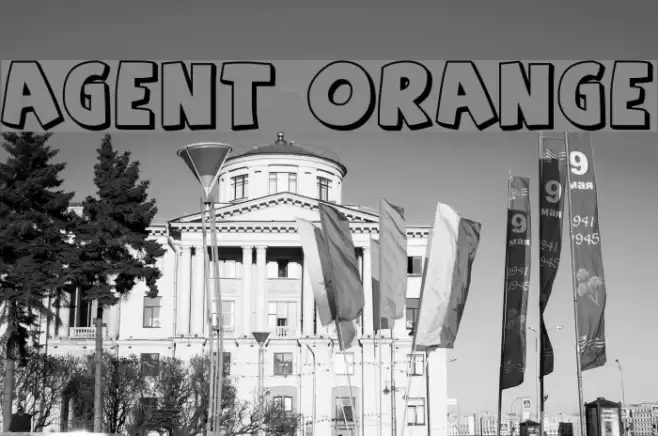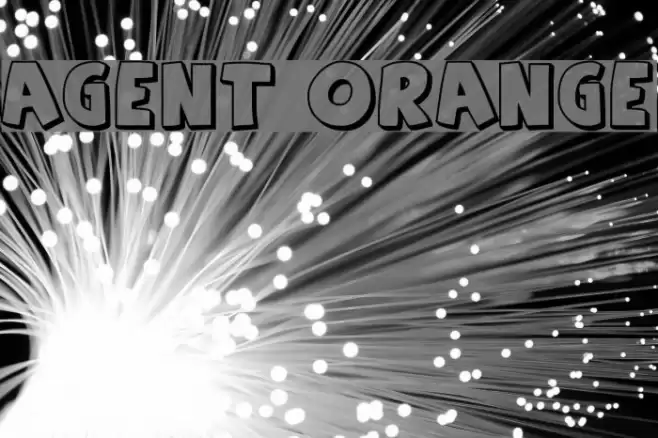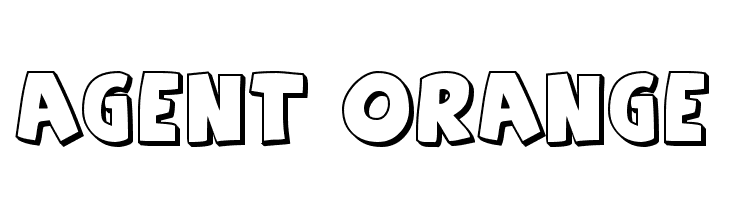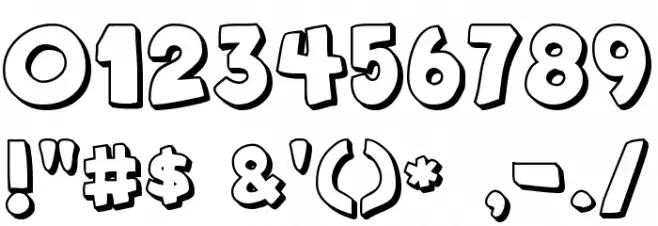
Agent Orange Font
Agent Orange Description
This playful and bold font features thick, rounded characters with a cartoonish outline that gives it a fun and lively appearance. The letters are uniformly wide, creating a sense of balance and consistency across both uppercase and lowercase alphabets. The numbers and special characters maintain the same whimsical style, making the font suitable for a variety of creative applications. Its bold strokes and outlined design make it highly legible, even at smaller sizes, while the exaggerated curves and angles add a touch of personality and charm.
A bold, playful font with rounded characters and a cartoonish outline from 3D fonts.
- Proposed Projects: Ideal for children's books, comic strips, playful branding, and event posters.
- Overall Style: Playful, Cartoonish